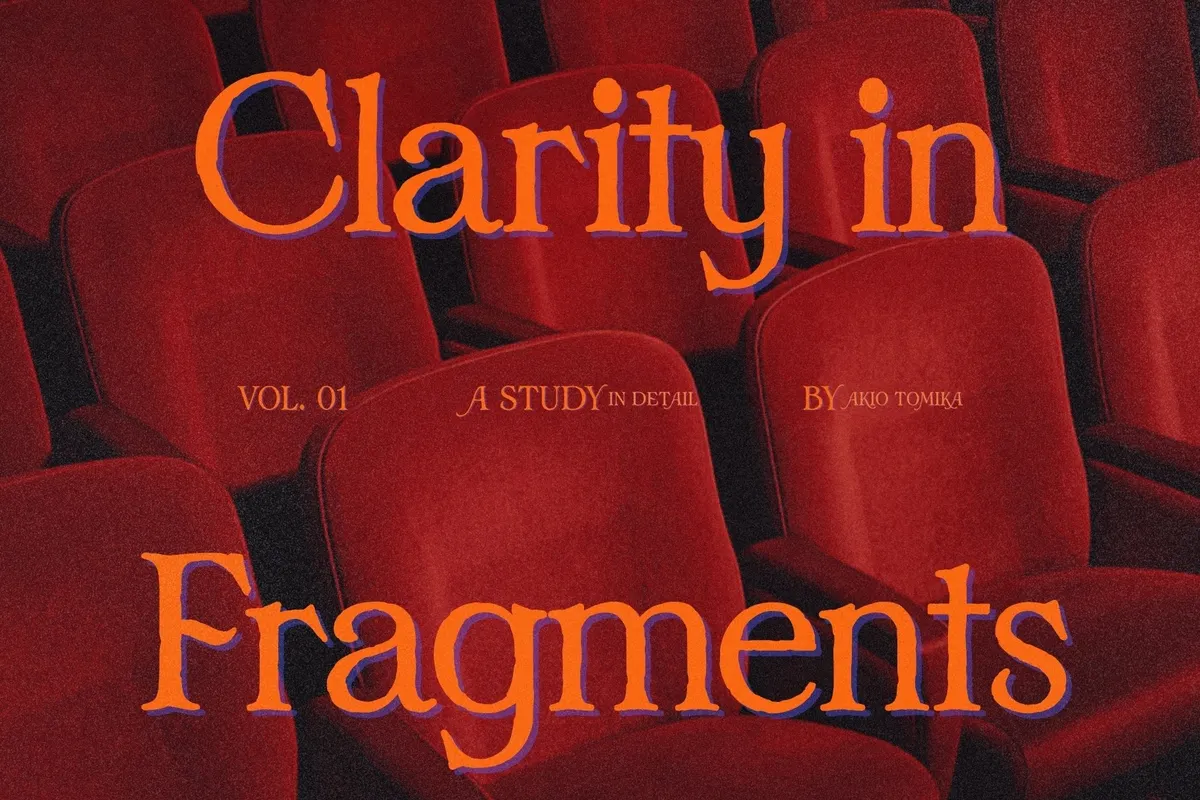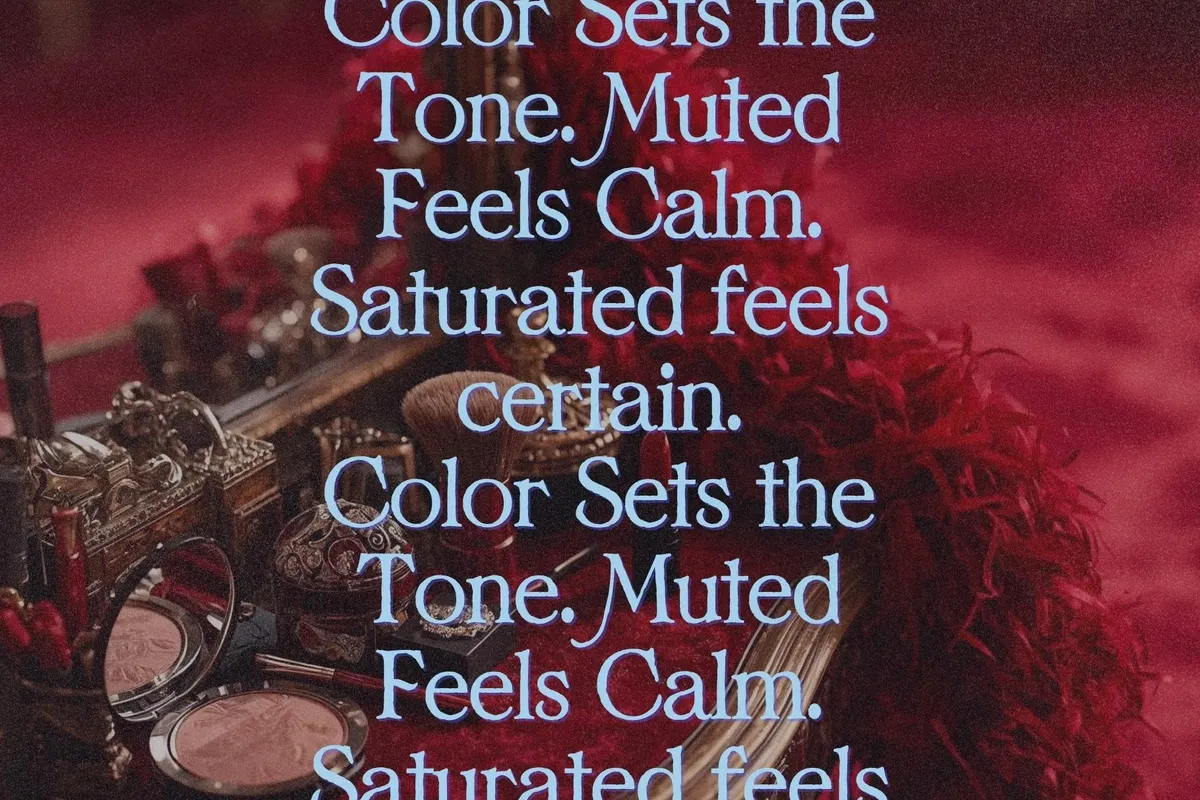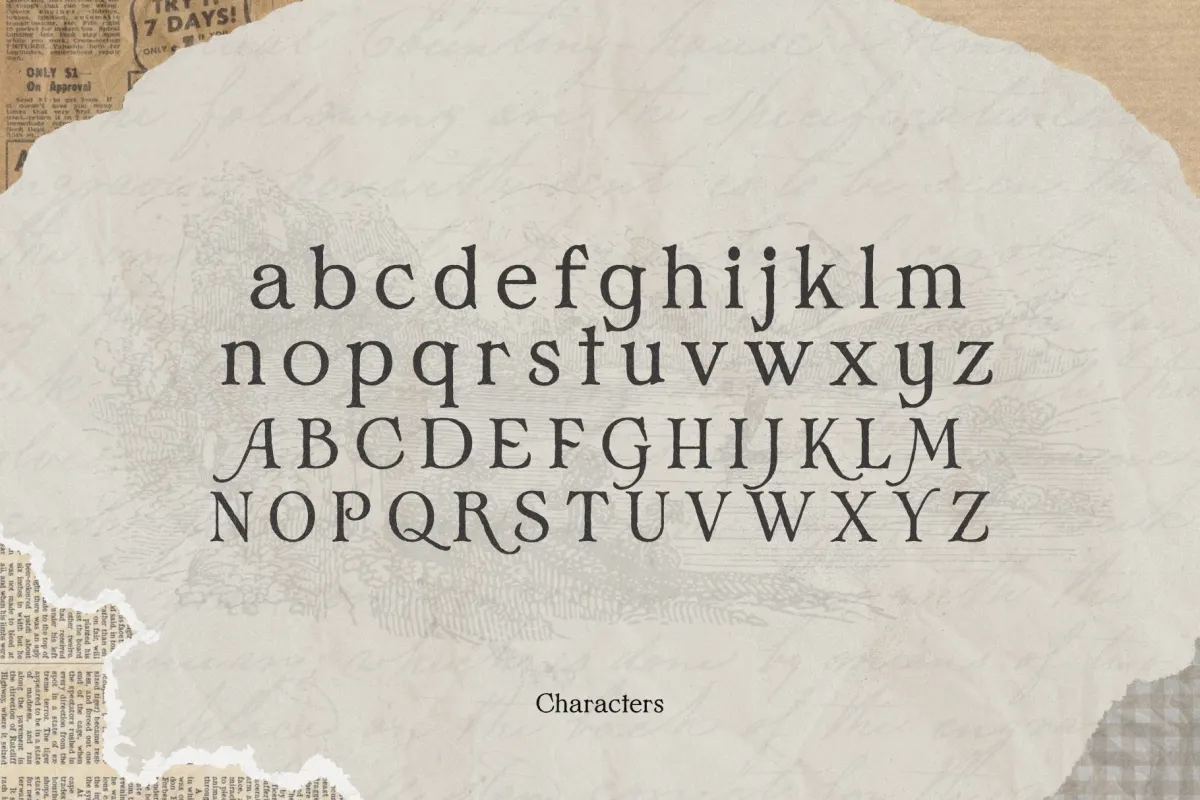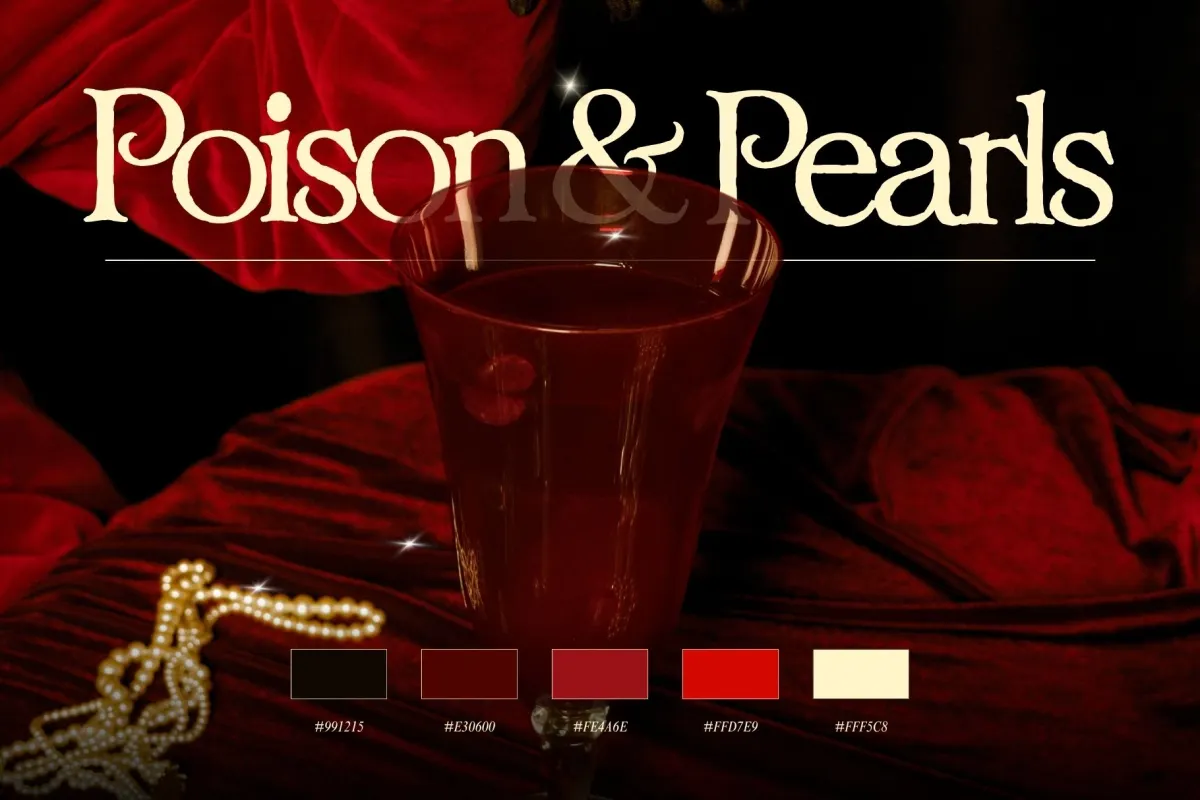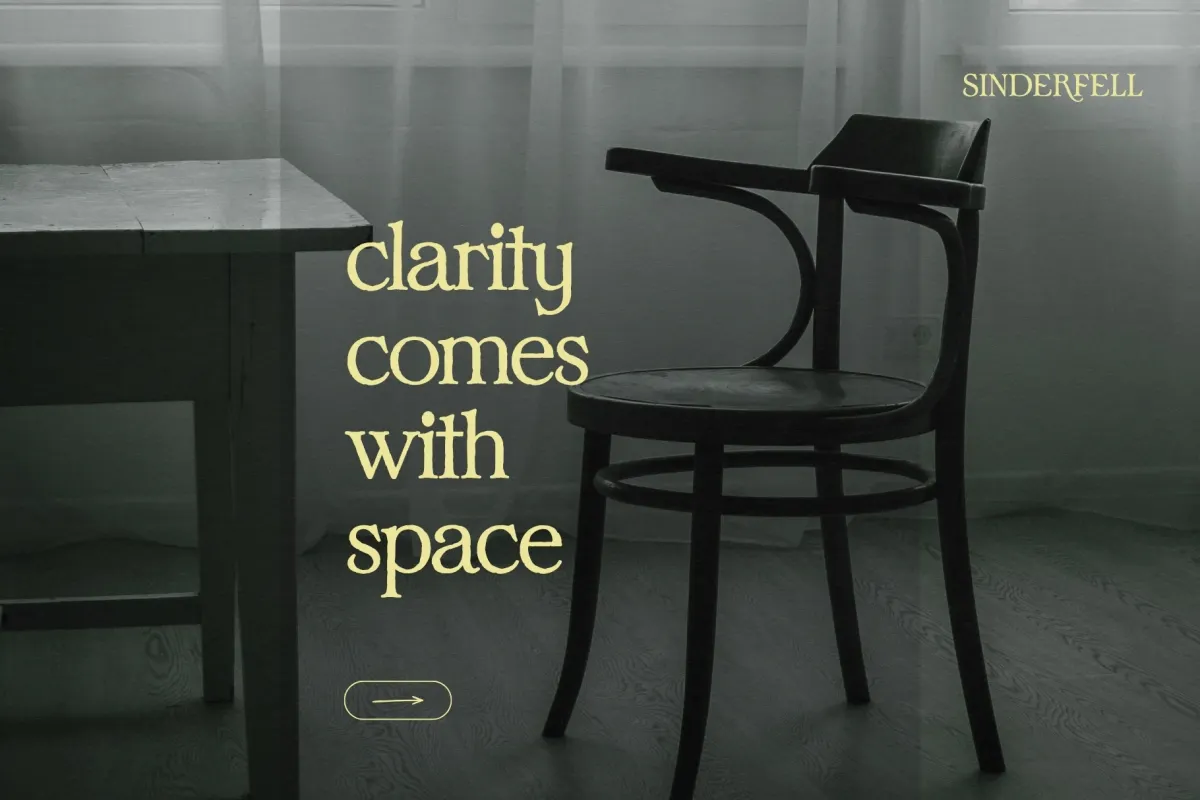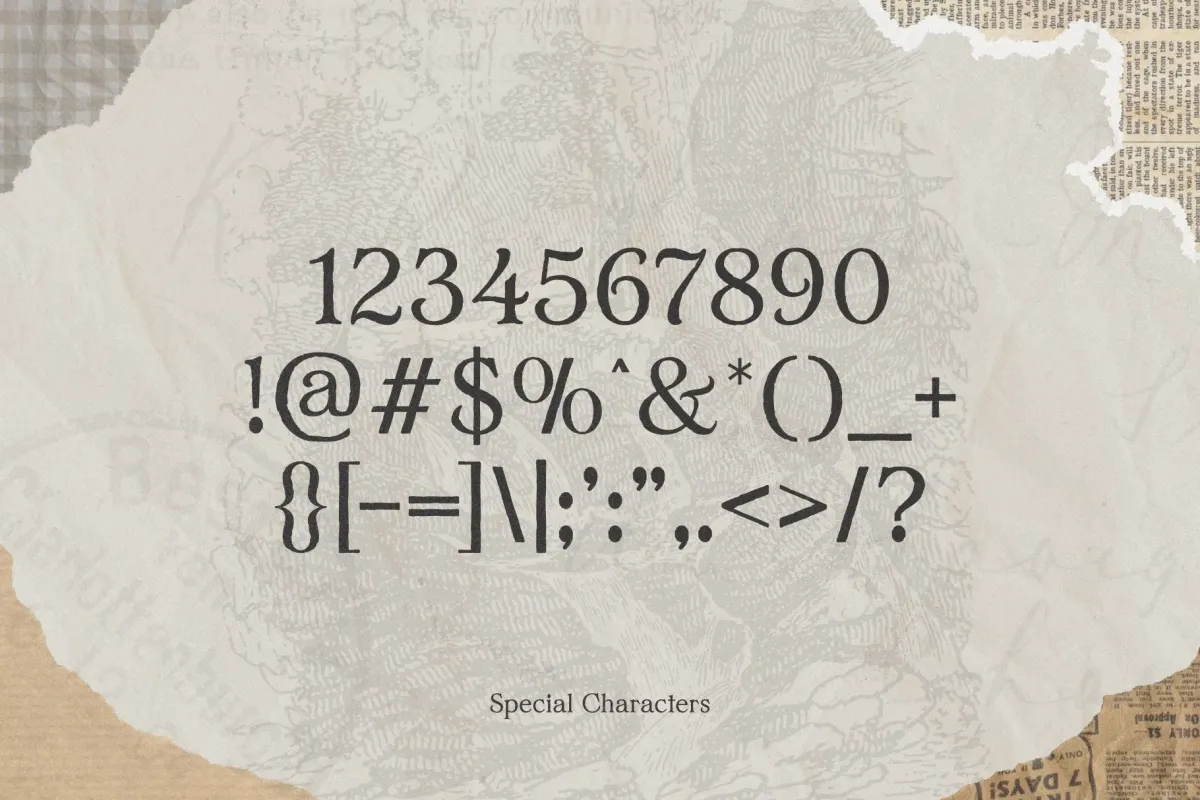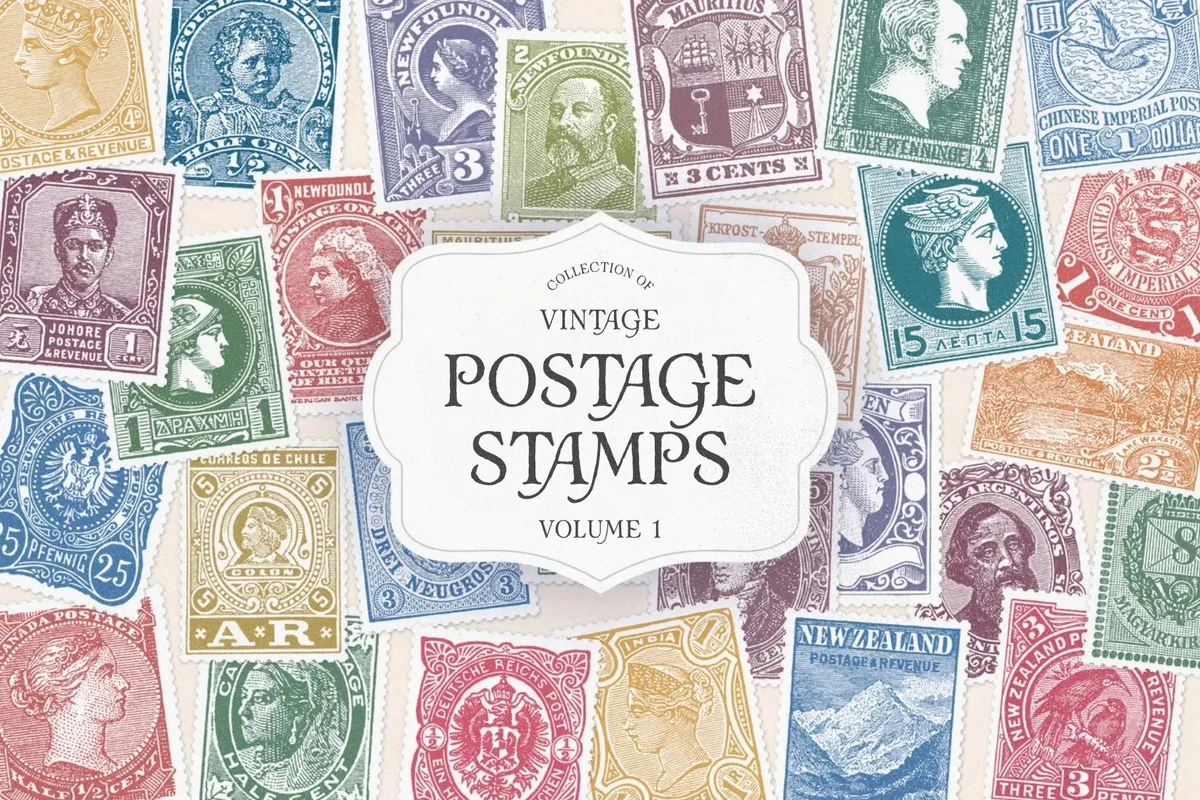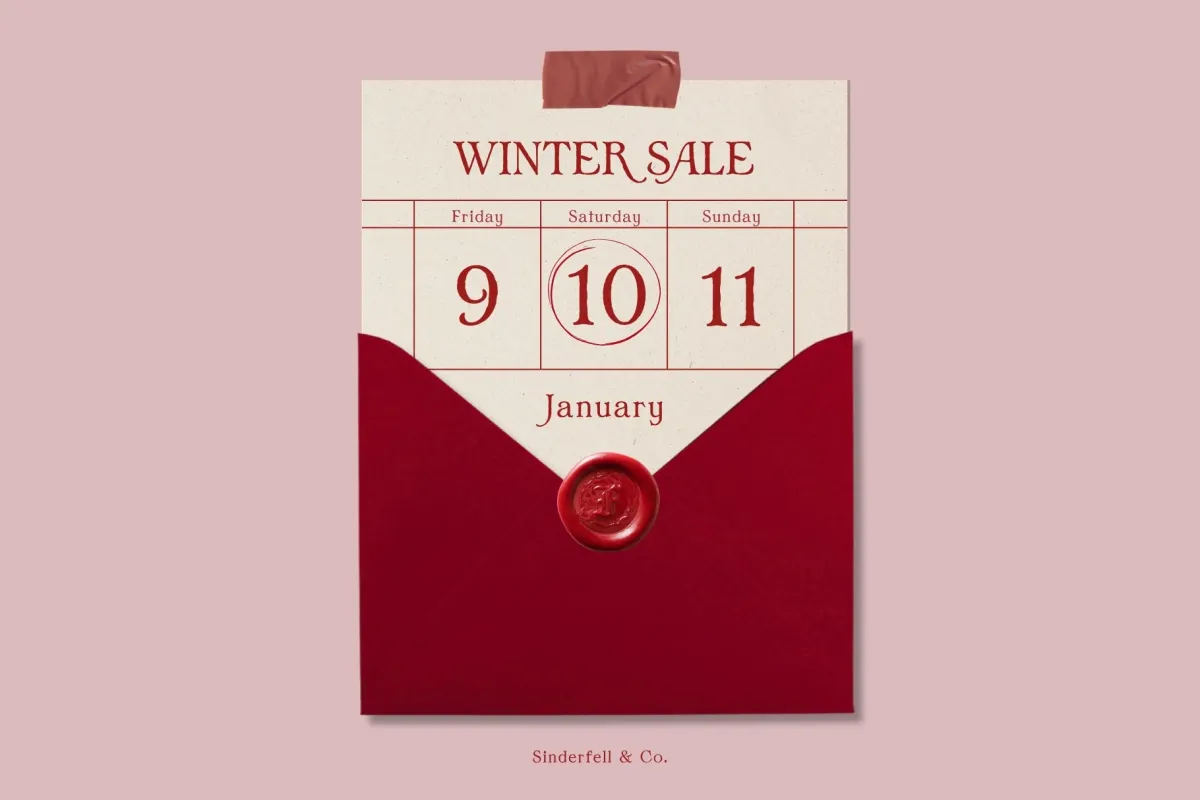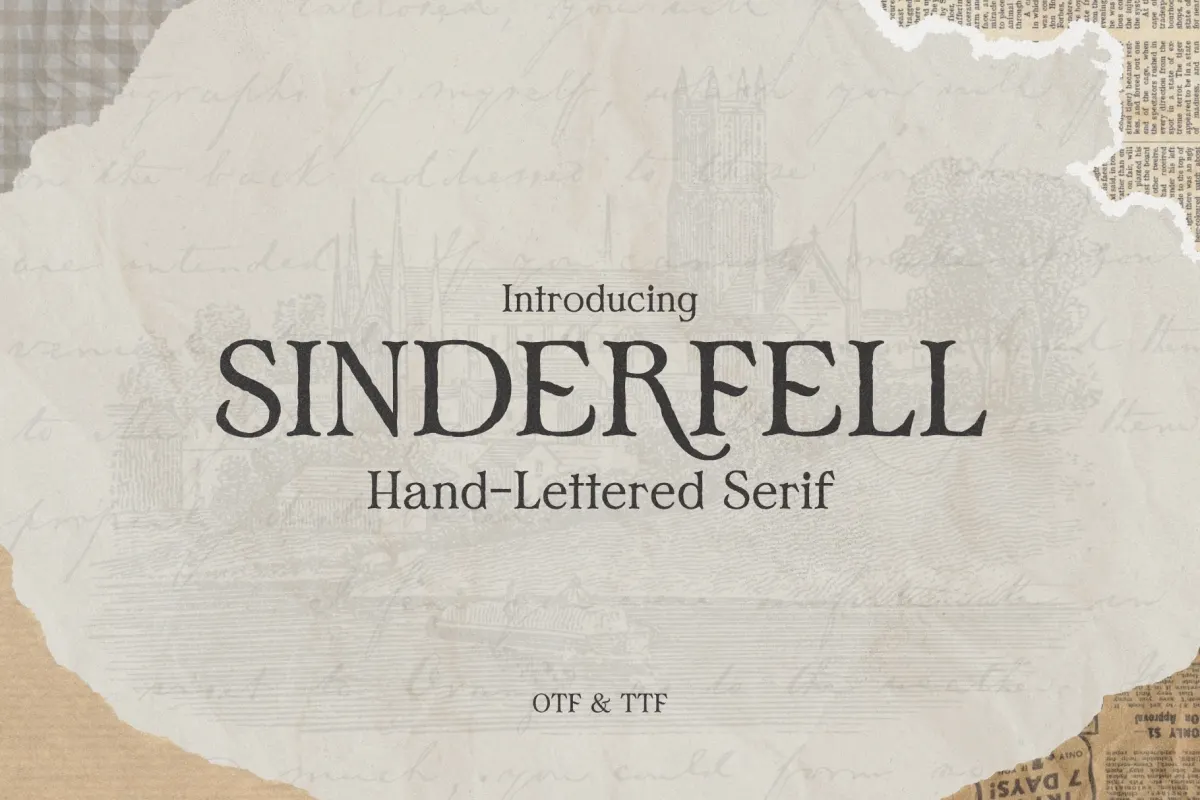
Sinderfell - Vintage Editorial Serif Font
Sinderfell
This vintage serif typeface has hand-lettered irregularity, slim bracketed strokes, and a worn print finish with a quiet literary mood. The shapes are refined but not overly polished, giving titles and labels an archival look with a human edge.
Sinderfell fits editorial covers, boutique logos, fragrance packaging, wine labels, book titles, gallery posters, vintage postage graphics, stationery, café menus, artisan branding, rustic invitations, quote layouts, apothecary labels, and social media visuals with a thoughtful old-world tone. Its uppercase and lowercase sets work well for expressive headlines, elegant wordmarks, and longer typographic compositions where texture matters.